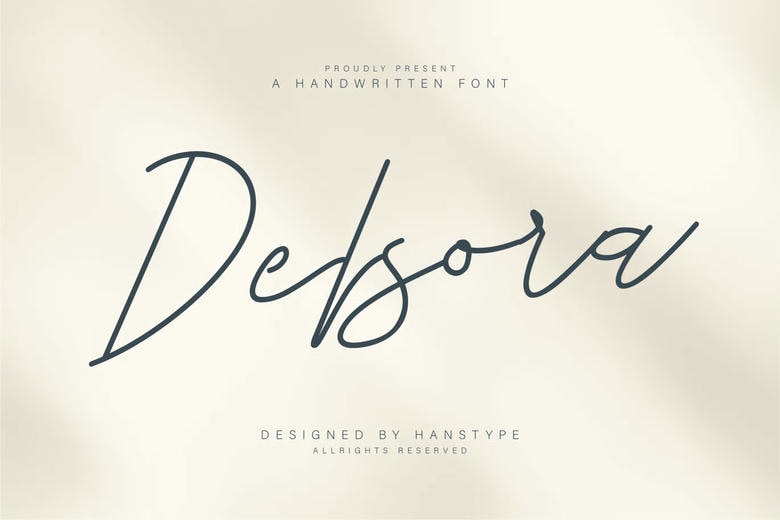
Delsora Font
Delsora is a delicate and fluid handwritten script font that has a touch of elegance and sophistication. Designed with smooth and sweeping curves and a dynamic flow, Wavira creates the impression of handwritten artistry, while retaining a modern and refined look.
Its letterforms are meticulously designed to provide both style and readability with subtle flourishes that accentuate the unique personality of the font.
Delsora Handwritten Script Font